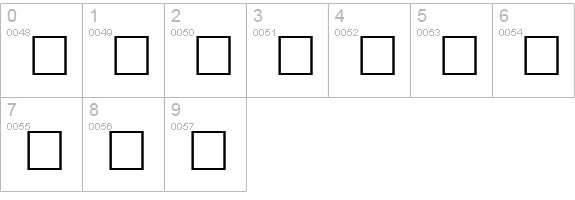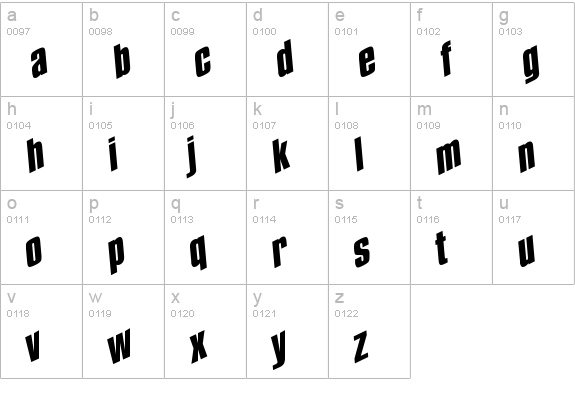
Spund Font Details
Introducing Spund, a free and captivating font that will add an element of sophistication and creativity to your designs. With its sleek lines and unique character, Spund is the perfect choice for projects that require a touch of elegance. Crafted with precision and attention to detail, this font effortlessly blends modernity with a classic twist, making it versatile and suitable for a wide range of design purposes. Whether you are working on a logo, branding materials, website design, or any other creative endeavor, Spund will surely make a lasting impression. One of the best features of Spund is its versatility. It adapts seamlessly to different design styles, whether you prefer a clean and minimalist look or a bold and expressive approach. This font allows you to experiment and explore various design possibilities, empowering you to create visually stunning and impactful designs. But what truly sets Spund apart is its availability as a free font. Yes, you read that right! Spund is freely available to download at FontsMarket.com, a trusted source for high-quality fonts. This means that you can enhance your design projects without breaking the bank, making it an excellent choice for both professional designers and hobbyists alike. Furthermore, Spund is not just any ordinary free font. It is meticulously crafted by a team of talented designers who understand the importance of quality and aesthetics. Each character is carefully designed to ensure legibility and visual harmony, resulting in a font that is both pleasing to the eye and easy to read. In addition to its stunning visual appeal, Spund also offers a wide range of glyphs and special characters, giving you the freedom to express your creativity without limitations. Whether you need accents, symbols, or even alternate characters, Spund has got you covered. So why wait? Download Spund now from FontsMarket.com and start transforming your designs into masterpieces. With its elegance, versatility, and the fact that it is freely available, Spund is truly a font that will elevate your creativity to new heights. Embrace the beauty of Spund and let your designs shine.